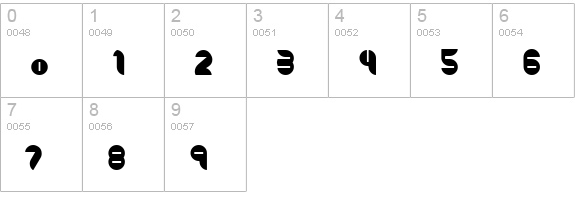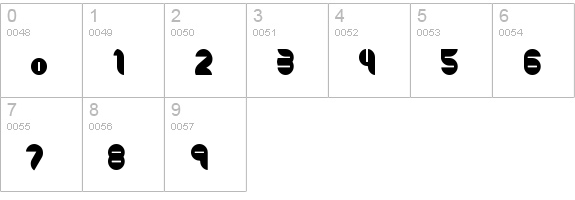
Bouncer Font Details
Introducing Bouncer font, a bold and modern typeface that exudes confidence and charisma. With its strong lines and sleek curves, Bouncer font is perfect for making a statement in any design project. Whether you're creating posters, logos, or social media graphics, this versatile font will add a touch of sophistication to your work. Best of all, Bouncer font is completely free to download at FontsMarket.com. Yes, you read that right - you can elevate your designs with this stunning font without spending a penny. So what are you waiting for? Head over to FontsMarket.com and grab your free download of Bouncer font today!